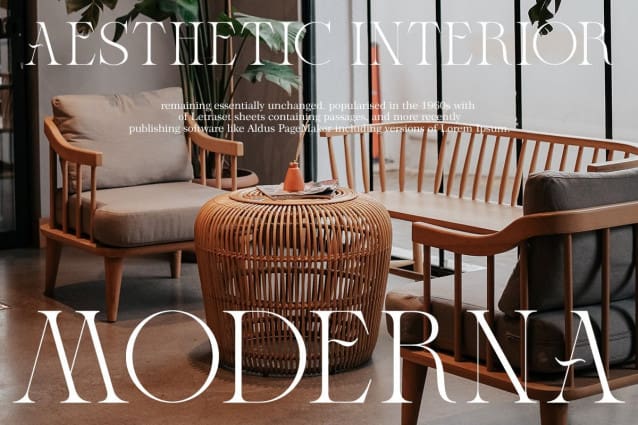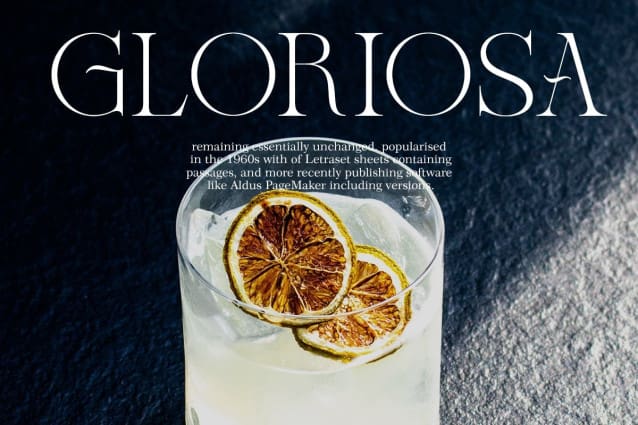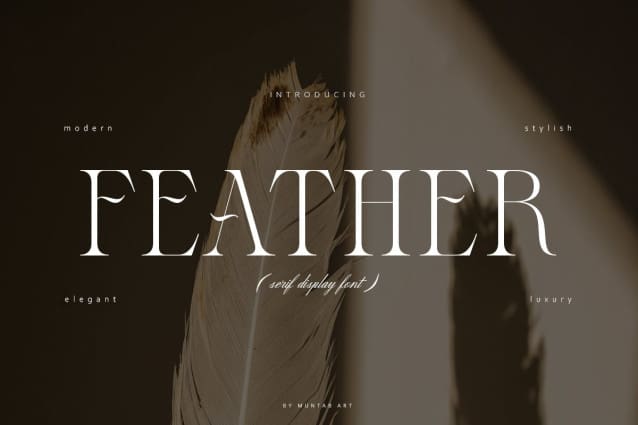
Feather Font
Feather Font include uppercase letters, numerals, a large range of punctuation. Serif font with modern style. Created for poster, web design, branding, illustrations, badges and some other works.